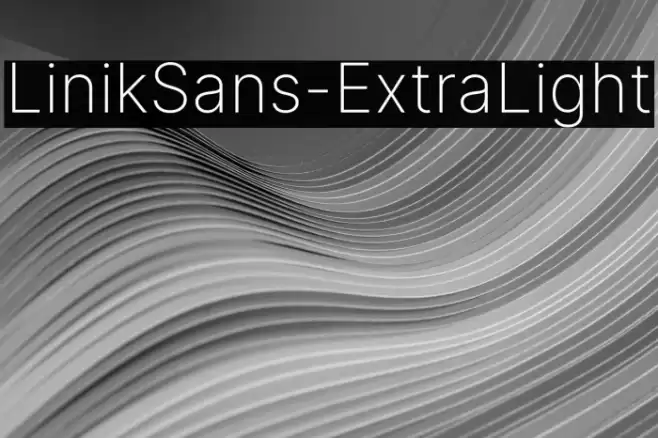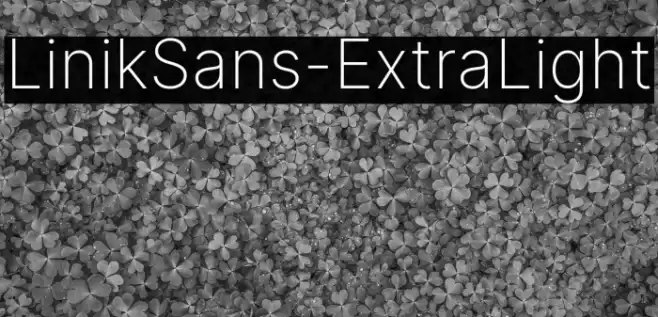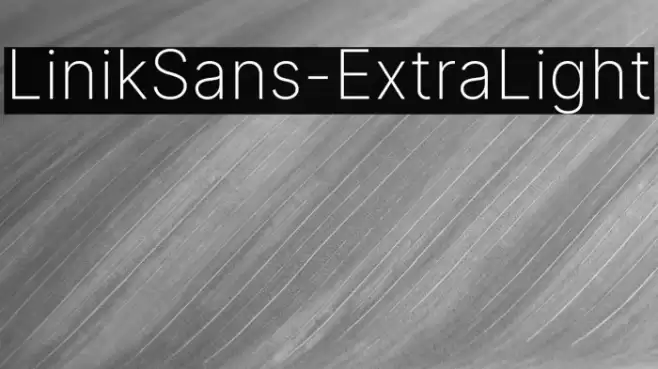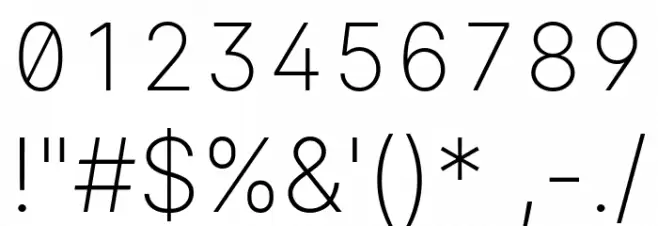
LinikSans-ExtraLight Font
LinikSans-ExtraLight Description
This typeface embodies a clean and modern aesthetic with its extra light weight, offering a sleek and minimalist appearance. The characters are well-proportioned with a uniform stroke width, contributing to its readability and elegance. The design is straightforward, with a focus on clarity and simplicity, making it suitable for various digital and print applications. The font's geometric structure and open counters enhance its legibility, while the consistent line thickness provides a harmonious and balanced look. Its versatility is evident in its ability to maintain a professional and contemporary feel across different contexts.
A modern, extra light sans-serif font with clean lines and geometric structure from Sans Serif fonts.
- Proposed Projects: Ideal for use in digital interfaces, corporate branding, minimalist design projects, and editorial layouts.